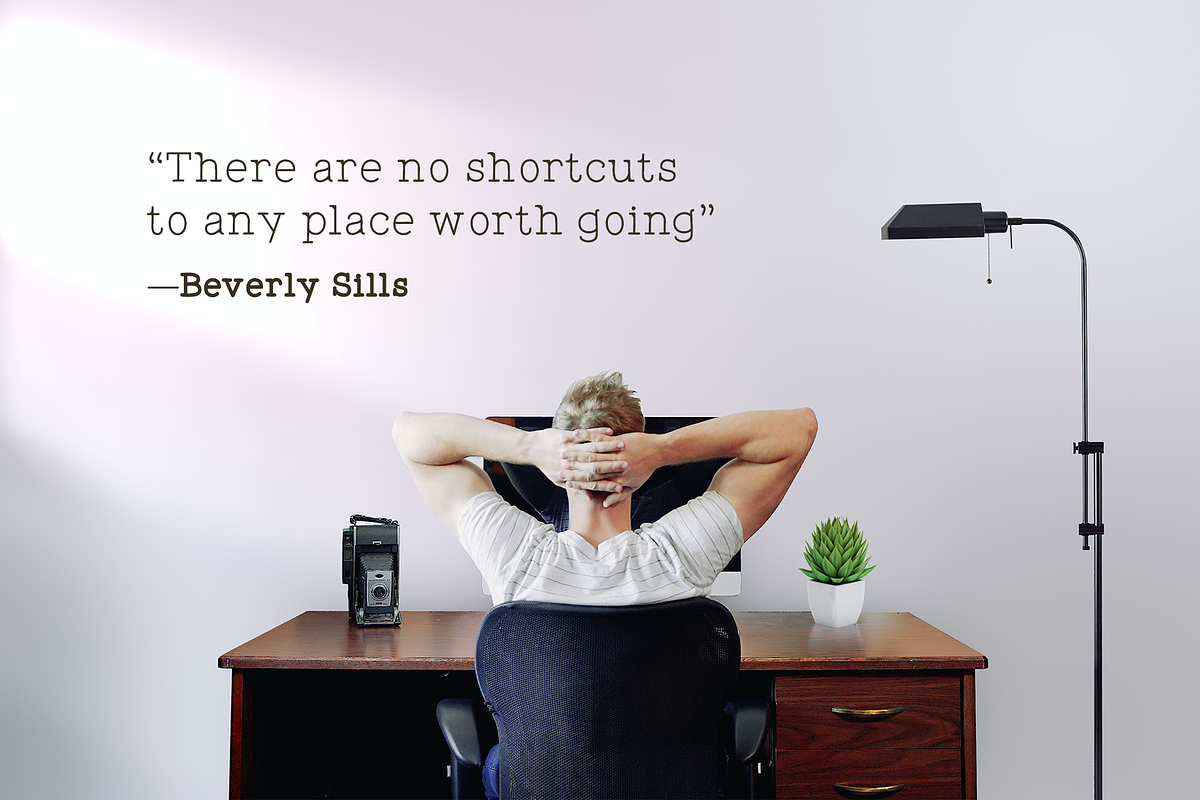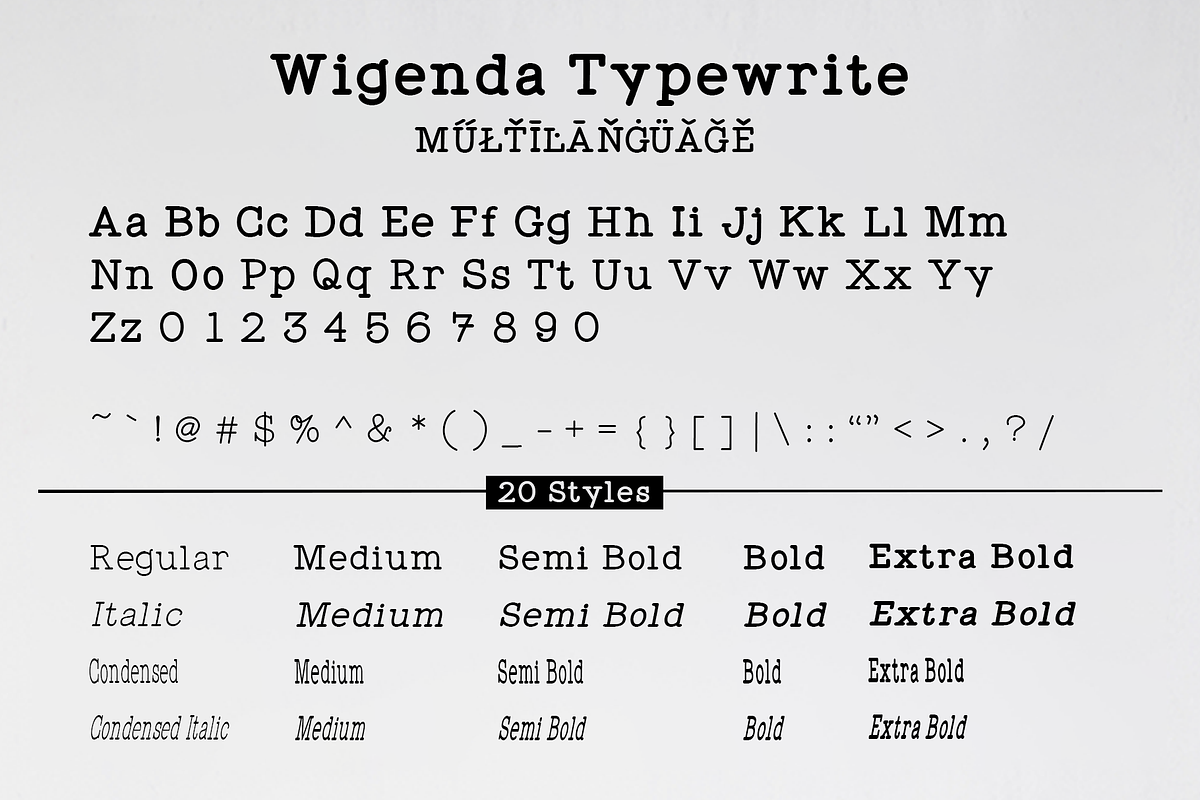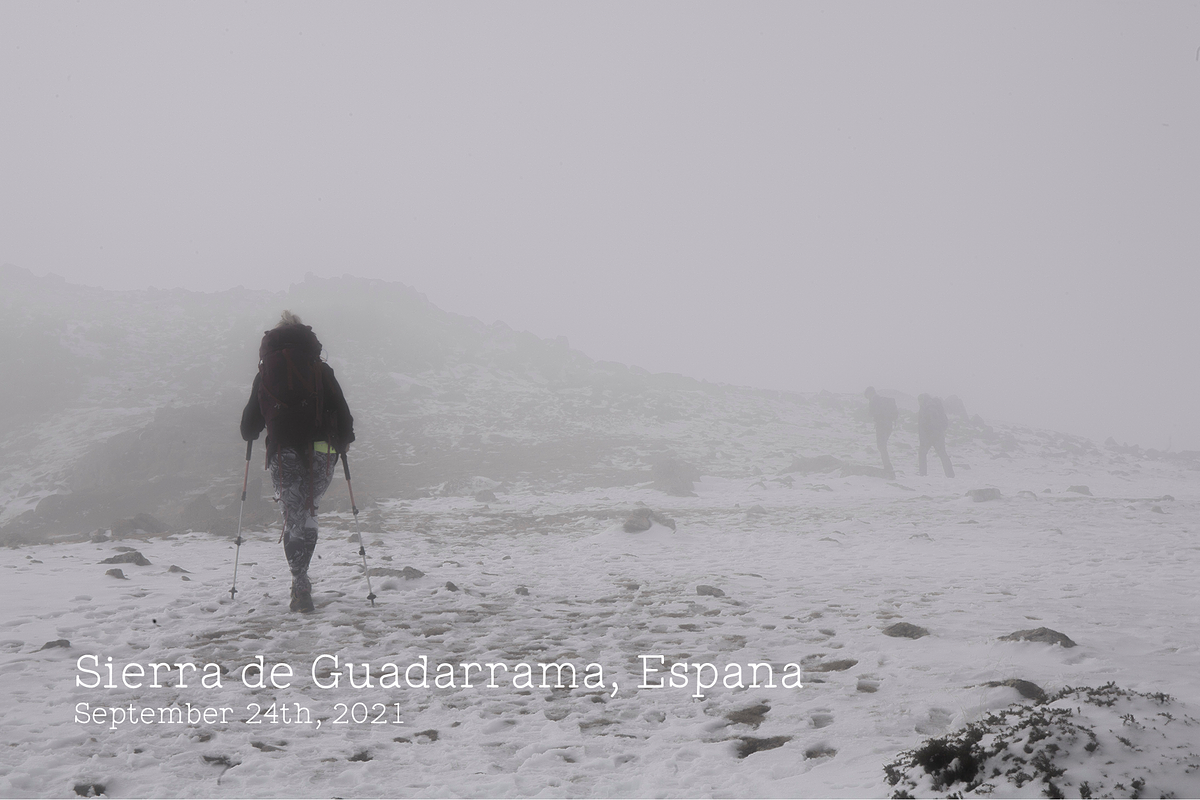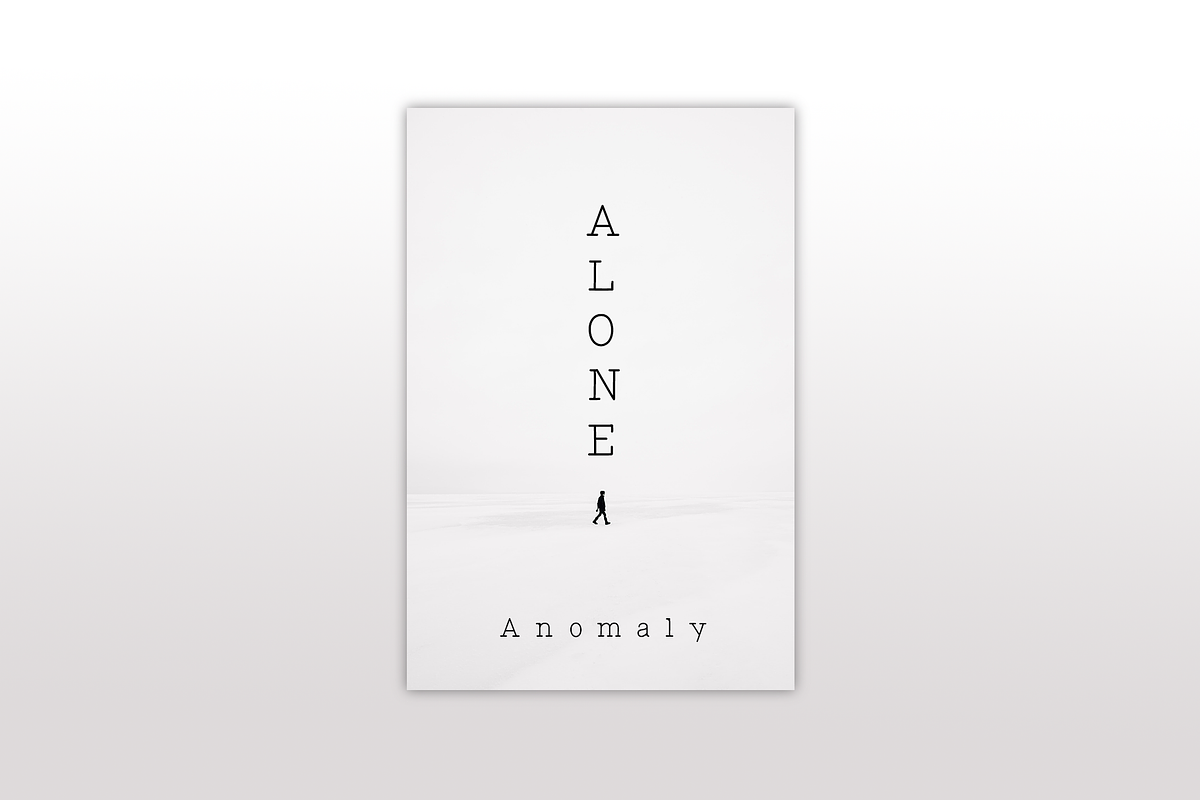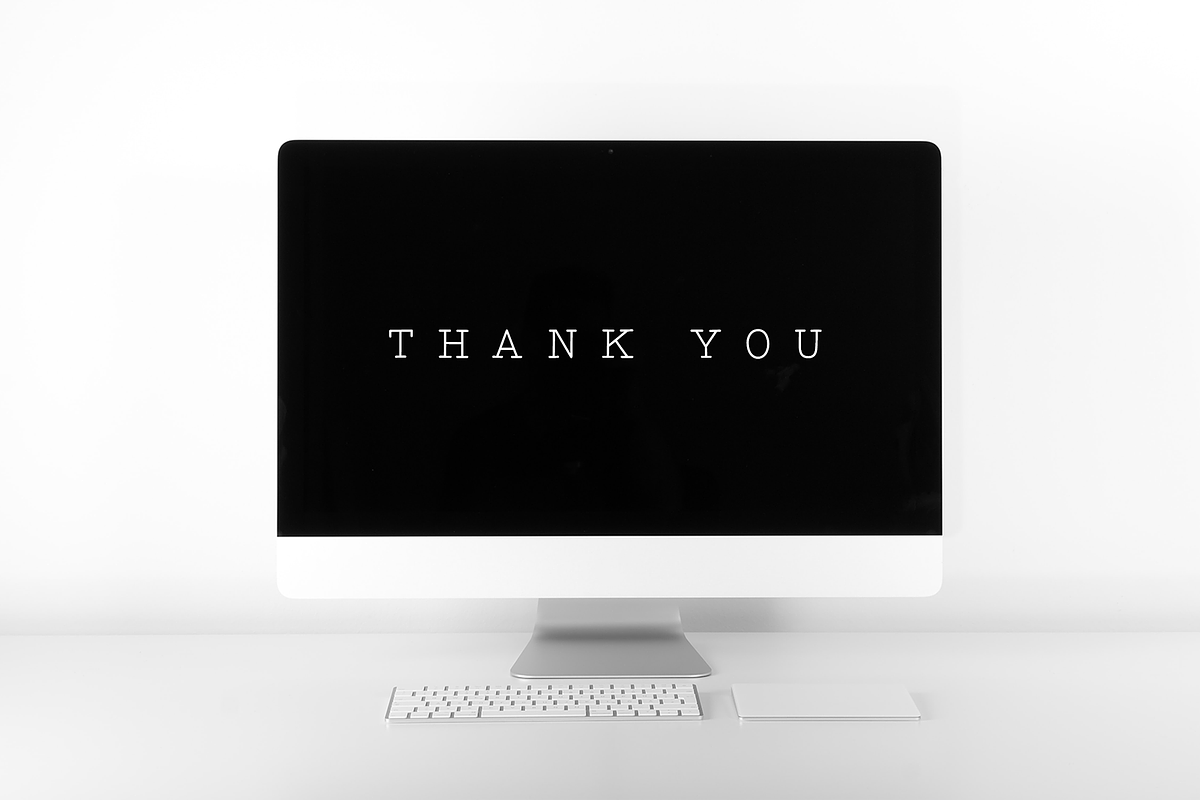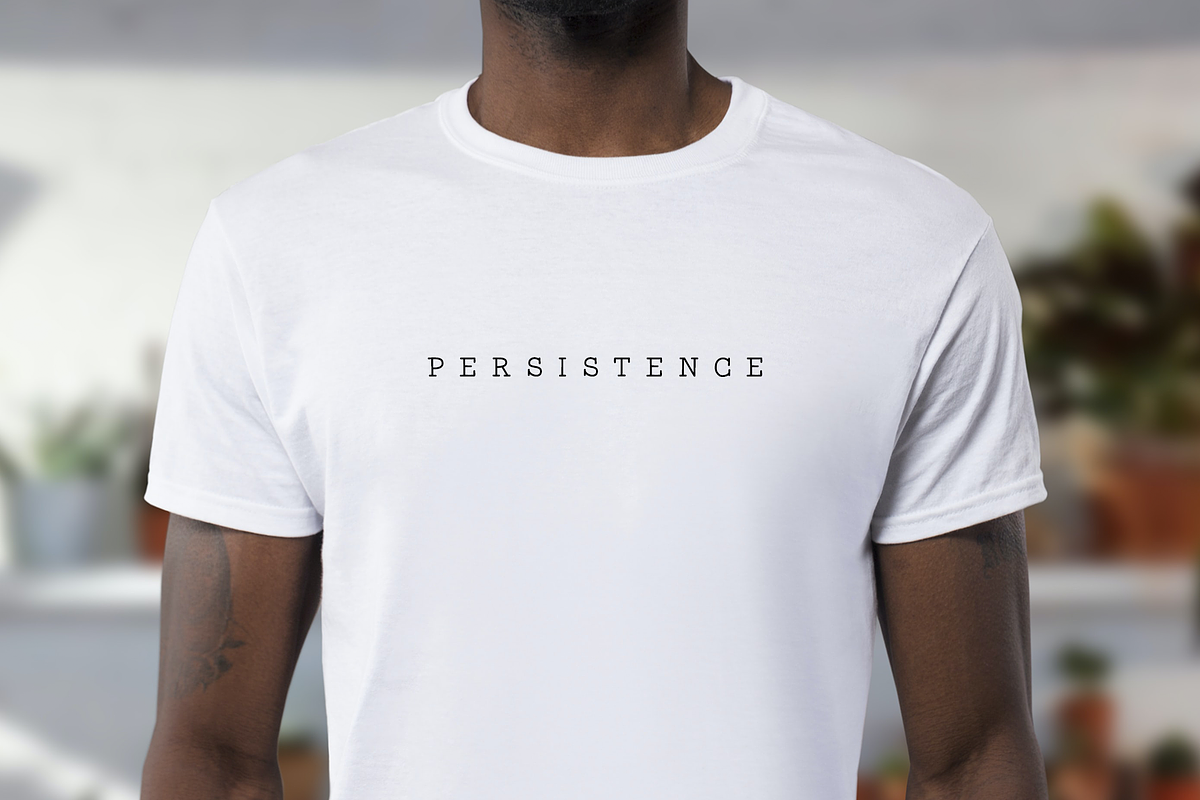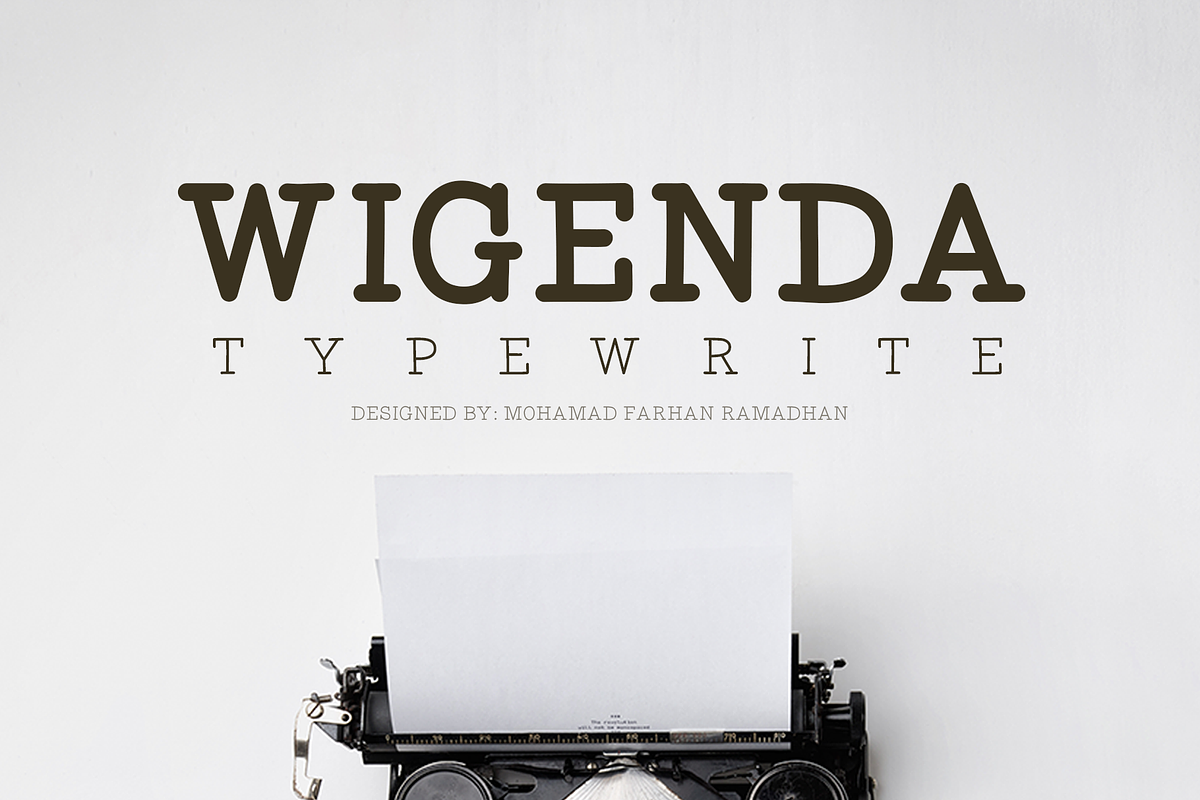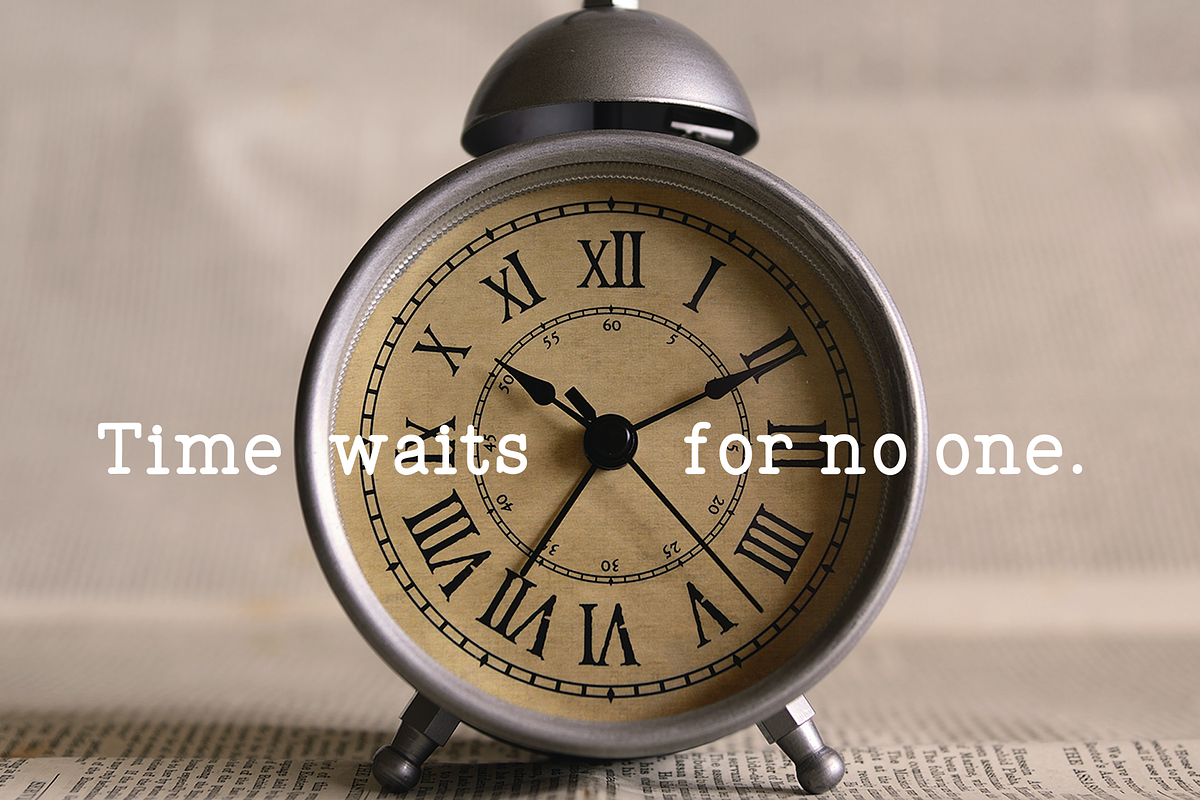
Wigenda Typewrite
Wigenda Typewrite is cool and modern slab serif font. This font is ideal for writing web designs, business cards, or pretty much anything else that requires a unique touch.